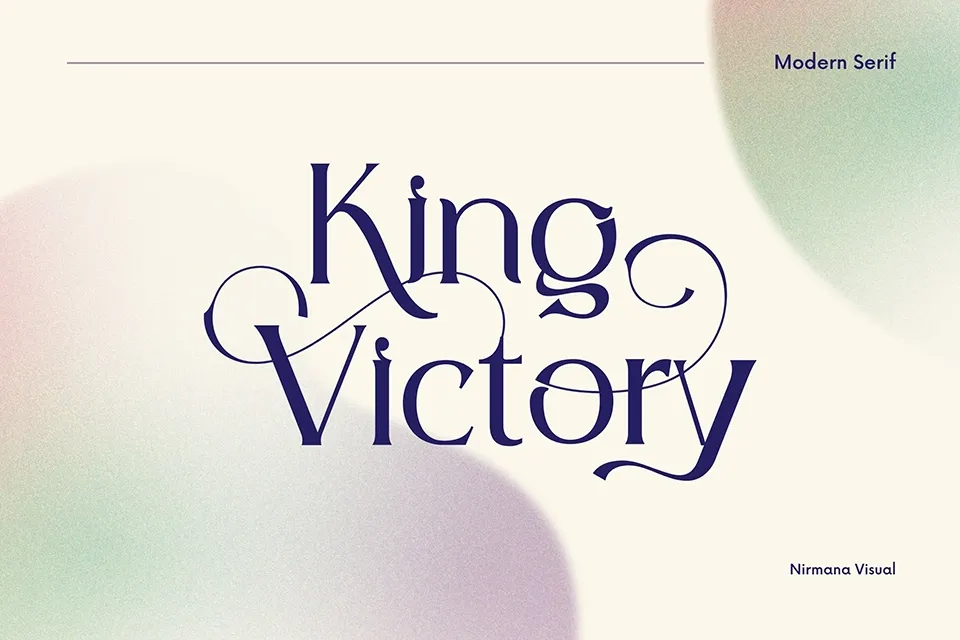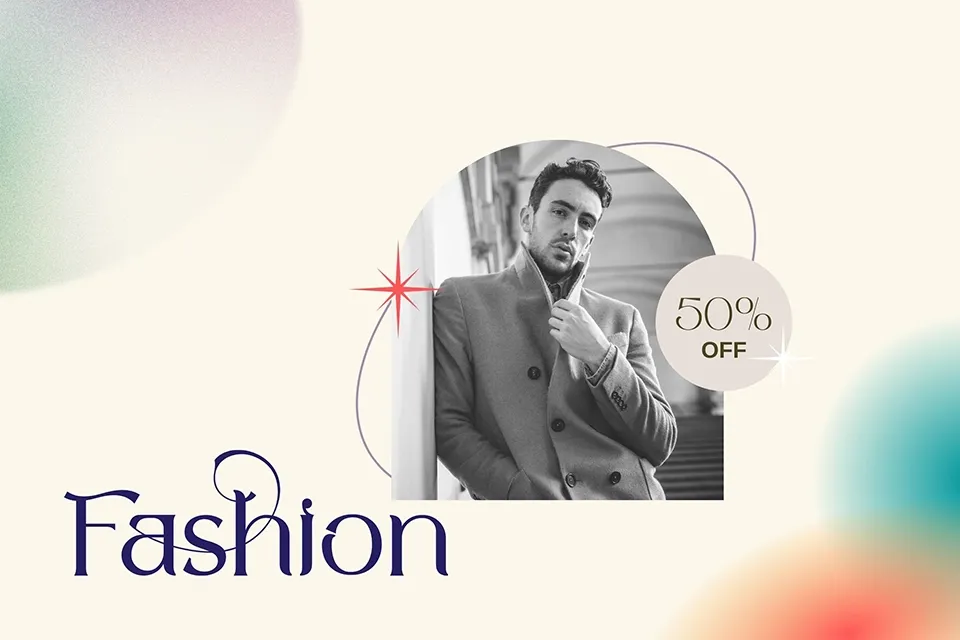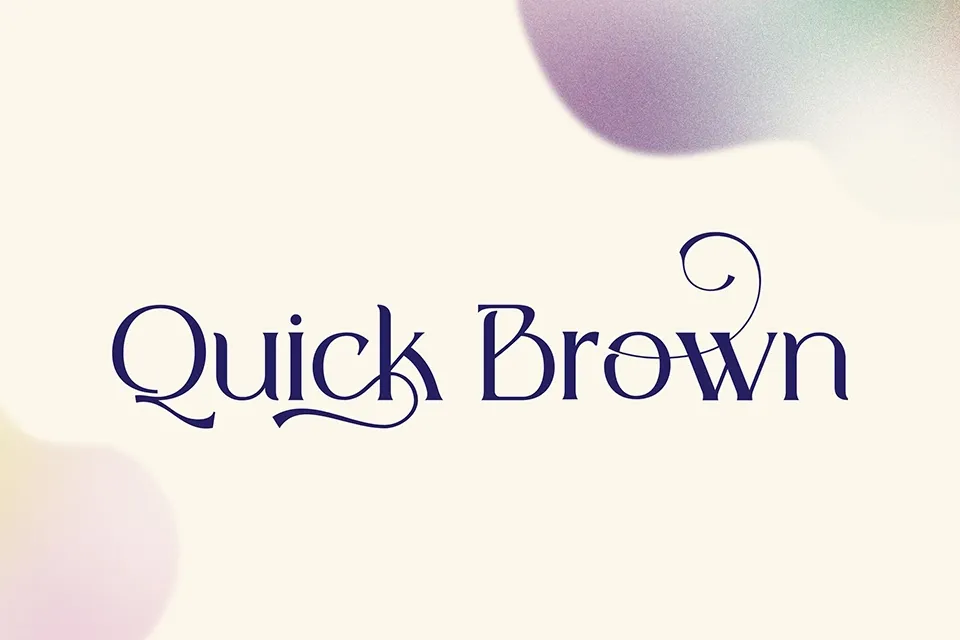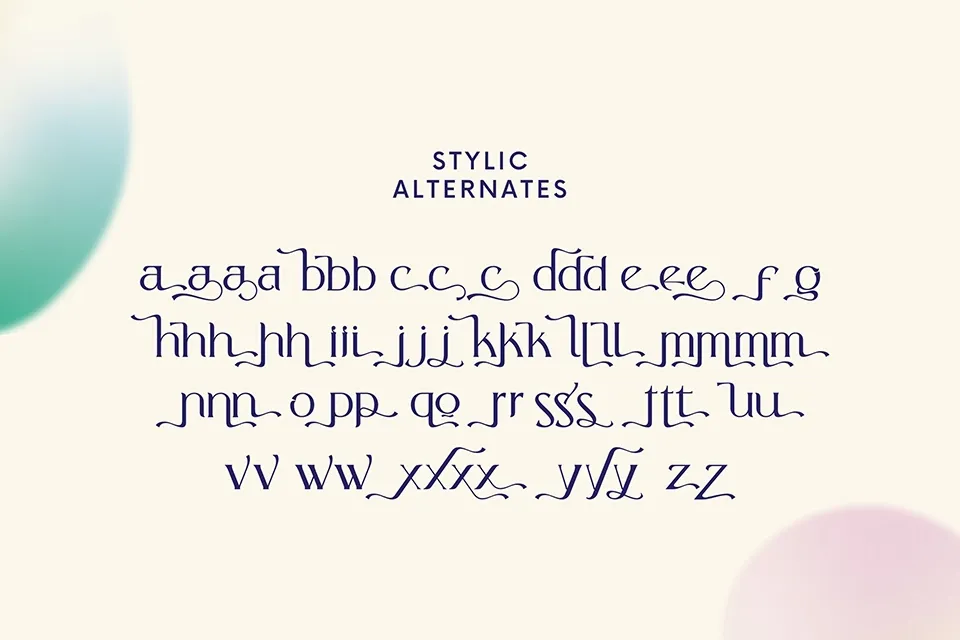
King Victory Font
King Victory Font is a luxurious and modern serif typeface that combines elegance with bold sophistication. Designed with intricate details and graceful curves, this font exudes a regal and artistic charm, making it perfect for high-end branding, editorial designs, logos, invitations, and packaging. Its stylish swashes and unique letterforms add a touch of refinement while maintaining excellent readability. King Victory Font is ideal for projects that demand a striking visual presence and timeless appeal. Whether used for formal or creative designs, this typeface ensures your work stands out with its captivating and versatile aesthetic.